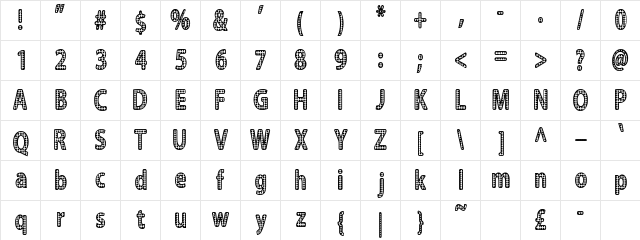
Blinger Regular
Design Context for Blinger Typeface
Blinger is a composed and adaptable typeface that performs quietly and consistently across a wide range of design contexts.
Pro Tip: Use Blinger in both headline and body roles to test its range before committing to a single application.